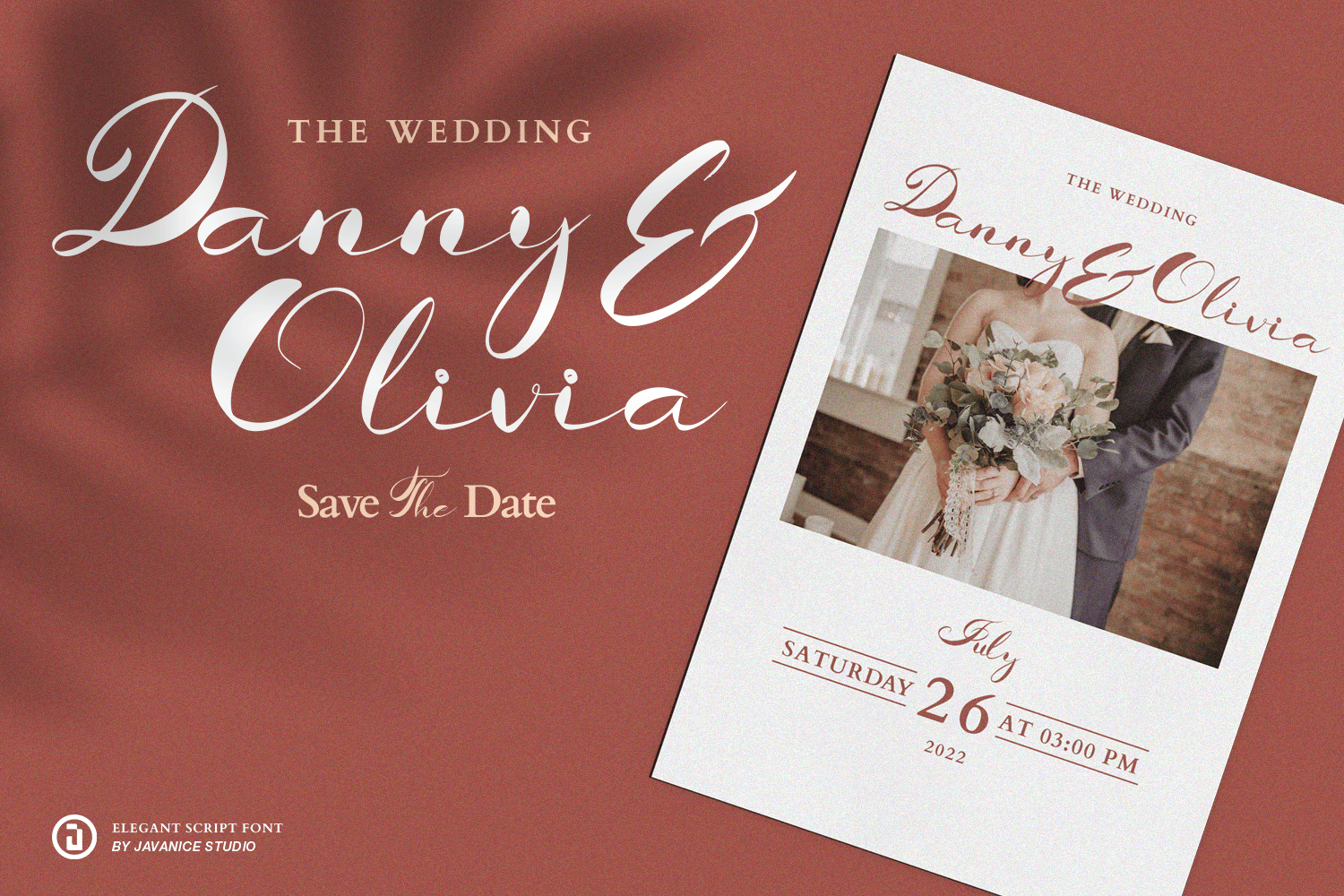
Lamella Elegant Script Font
This is A Elegant Script Font. This font is perfect for branding project, apparel, labels, magazines, books, greeting / wedding cards, packaging, fashion, make up, stationery, and any type of advertising purpose or just used to express words above the background.